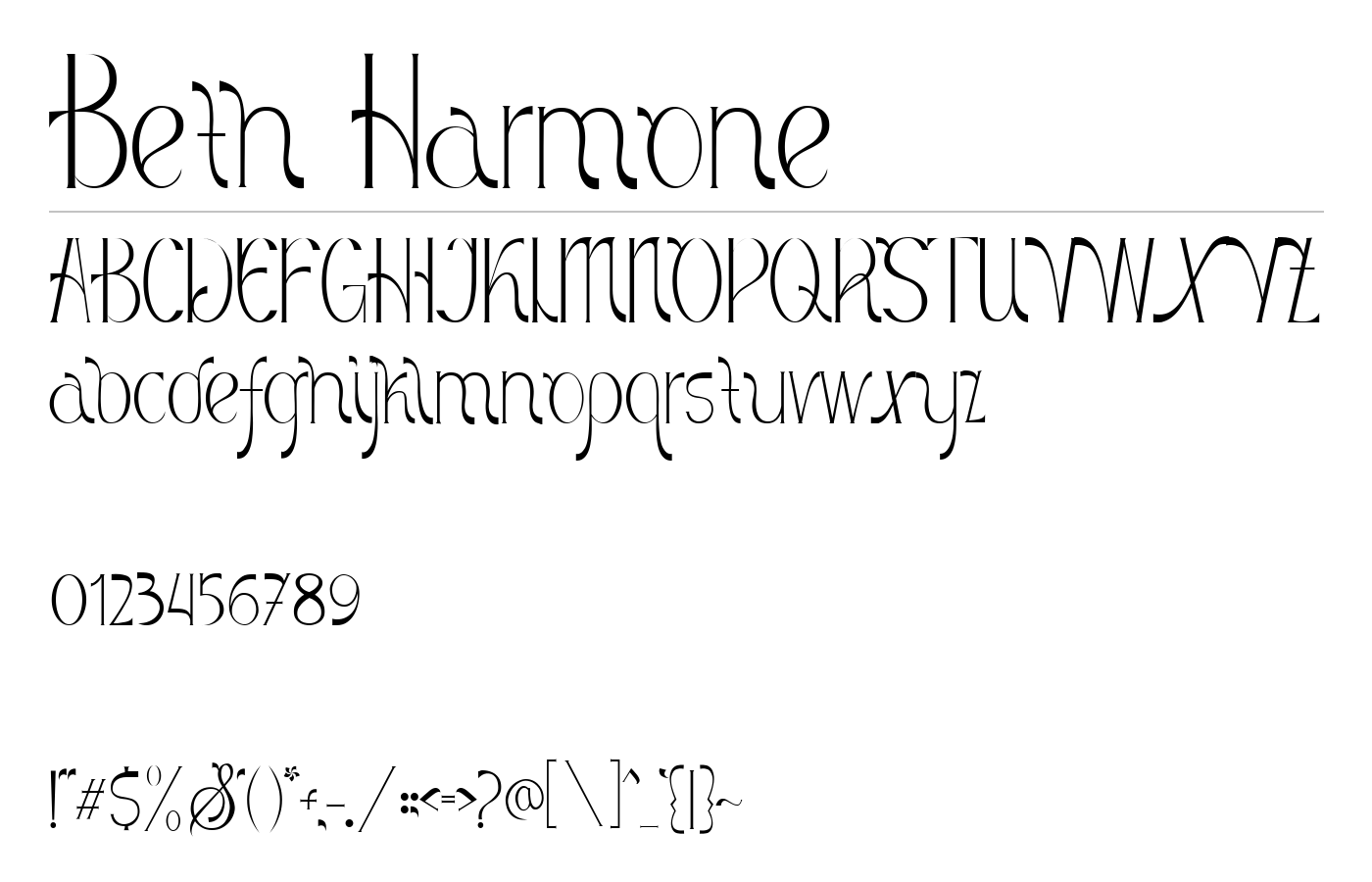
Beth Harmone is a delicate, elegant serif font with a tall, slender structure and high contrast between its thick and thin strokes. Its whimsical and slightly quirky letterforms, featuring unique curves and graceful details, give it a vintage yet artistic charm, making it ideal for fashion, luxury branding, and creative editorial use. This font works best in logos and headlines where its refined personality can truly stand out and captivate attention.
Beth Harmone Font
About Beth Harmone Font
| Font family | Beth Harmone Font |
| Designer | Pinakiaa |